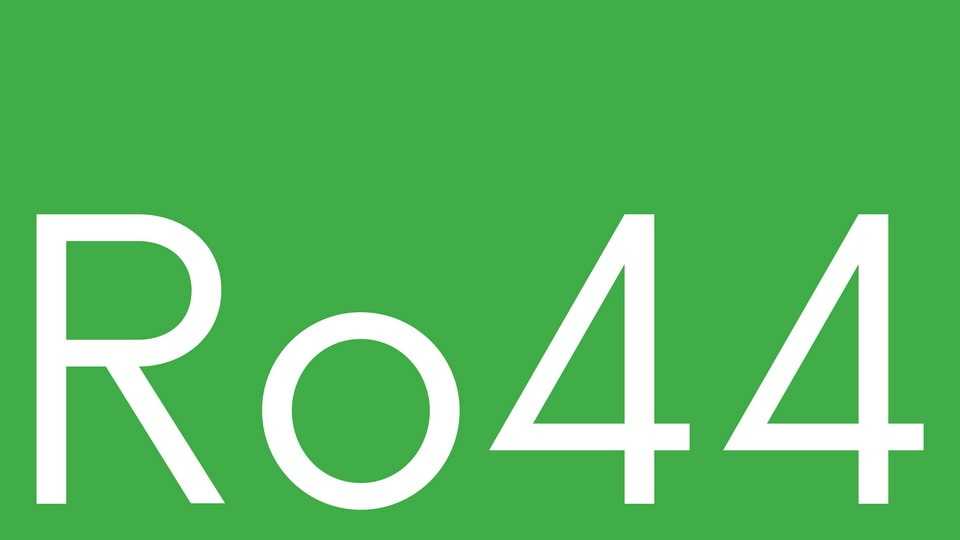
Download Toronto font, a semi-faithful revival of the Rarotype typewriter font Ro 44 Toronto. The original design was strictly monospaced, reflecting the technical limits of typewriters.
Designer: Carter Teranes